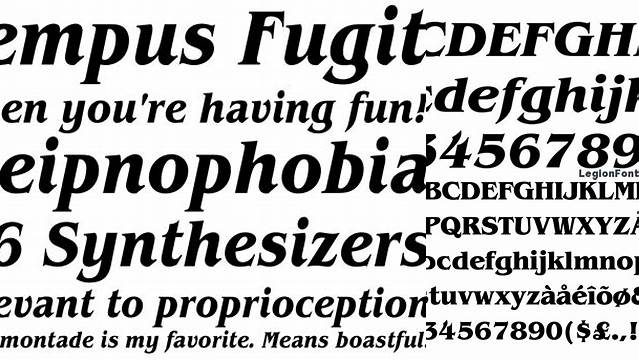
Introduction to ITC Benguiat Pro Bold Condensed Italic
The ITC Benguiat Pro Bold Condensed Italic font is a distinctive and elegant typeface that has garnered significant attention in the design world. Known for its unique blend of readability and aesthetic appeal, this font is often favored for projects that require a touch of sophistication and style. If you're on the hunt for the ITC Benguiat Pro Bold Condensed Italic font, you're likely looking to enhance your design projects with a typeface that stands out. Whether you're designing a logo, creating marketing materials, or working on a branding project, this font can bring a level of finesse that few others can match. This comprehensive guide will explore the nuances of this font, discuss its applications, and provide insights into where you can find it for free download, ensuring you make the most informed decision for your creative endeavors. The ITC Benguiat Pro Bold Condensed Italic font has a rich history and a unique design, setting it apart from other typefaces. Created by the International Typeface Corporation (ITC), this font family is known for its decorative and artistic qualities. The “Benguiat” name comes from the renowned type designer Ed Benguiat, who has contributed significantly to the world of typography. This particular variant, the Bold Condensed Italic, offers a striking combination of boldness, narrow proportions, and a slanted appearance, making it ideal for headlines, titles, and display purposes where you want to capture attention. Understanding the specifics of what makes this font unique is crucial when deciding if it fits your project's needs. Its condensed nature allows you to fit more text into a smaller space without sacrificing readability, while the italic style adds a dynamic and elegant flair. The bold weight ensures that the text stands out, making it a popular choice for designs that need to make a strong impression.
Tips for Using ITC Benguiat Pro Bold Condensed Italic Effectively
Once you've managed to get your hands on the ITC Benguiat Pro Bold Condensed Italic font, the next step is to use it effectively in your design projects. This font, with its unique characteristics, can add a touch of elegance and sophistication to your work, but it's important to use it judiciously to maximize its impact. One of the most important tips for using ITC Benguiat Pro Bold Condensed Italic effectively is to use it sparingly. This font is best suited for headlines, titles, and display purposes, where its distinctive style can grab attention. Avoid using it for large blocks of body text, as its condensed and italicized nature can make it difficult to read. Instead, pair it with a more legible font for body text to ensure a balanced and readable design. Pay attention to the kerning and letter spacing when using ITC Benguiat Pro Bold Condensed Italic. Kerning refers to the spacing between individual letters, while letter spacing refers to the overall spacing between all letters in a word or phrase. Adjusting these settings can significantly improve the readability and visual appeal of the font. In some cases, you may need to manually adjust the kerning to ensure that the letters are evenly spaced and that the font looks its best. Consider the color palette and contrast when using ITC Benguiat Pro Bold Condensed Italic. The color of the font and the background can have a significant impact on readability and visual impact. Choose colors that provide sufficient contrast to ensure that the text stands out. For example, using a light-colored font on a dark background or vice versa can create a striking effect. Avoid using colors that are too similar, as this can make the text difficult to read. Experiment with different sizes and weights to find the perfect balance for your design. The ITC Benguiat Pro Bold Condensed Italic font is available in different weights, allowing you to choose the level of boldness that best suits your needs. Using a larger font size can make the text more prominent, while using a lighter weight can create a more subtle effect. Experiment with different combinations to find the perfect balance for your design. Use it to create visual hierarchy. Visual hierarchy refers to the arrangement of elements in a design to guide the viewer's eye and convey the relative importance of different pieces of information. By using ITC Benguiat Pro Bold Condensed Italic for headings and titles, you can create a clear visual hierarchy that helps the viewer understand the structure of your design.
In conclusion, the ITC Benguiat Pro Bold Condensed Italic font is a remarkable typeface that can significantly enhance the visual appeal of your design projects. While finding a free and legal download may require some effort, understanding font licensing, exploring promotional offers, and considering font alternatives can help you achieve your design goals without compromising on quality or legality. Remember to use the font effectively by applying it judiciously, paying attention to kerning and letter spacing, and considering the color palette and contrast. By following these tips, you can create stunning designs that showcase the elegance and sophistication of the ITC Benguiat Pro Bold Condensed Italic font or its alternatives. Whether you're designing a logo, creating marketing materials, or working on a branding project, the right font can make all the difference. Take the time to explore your options, experiment with different typefaces, and choose the font that best reflects your brand's personality and message. Happy designing!